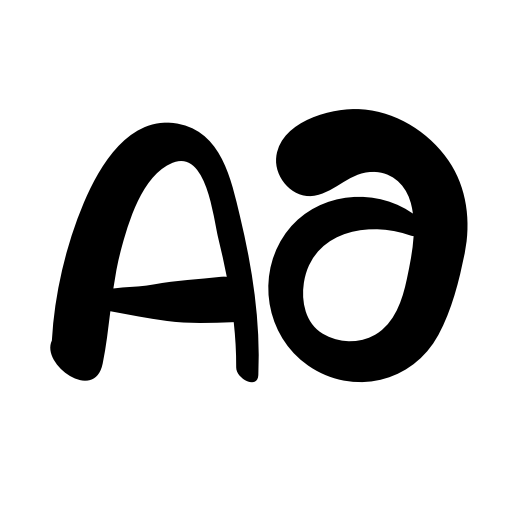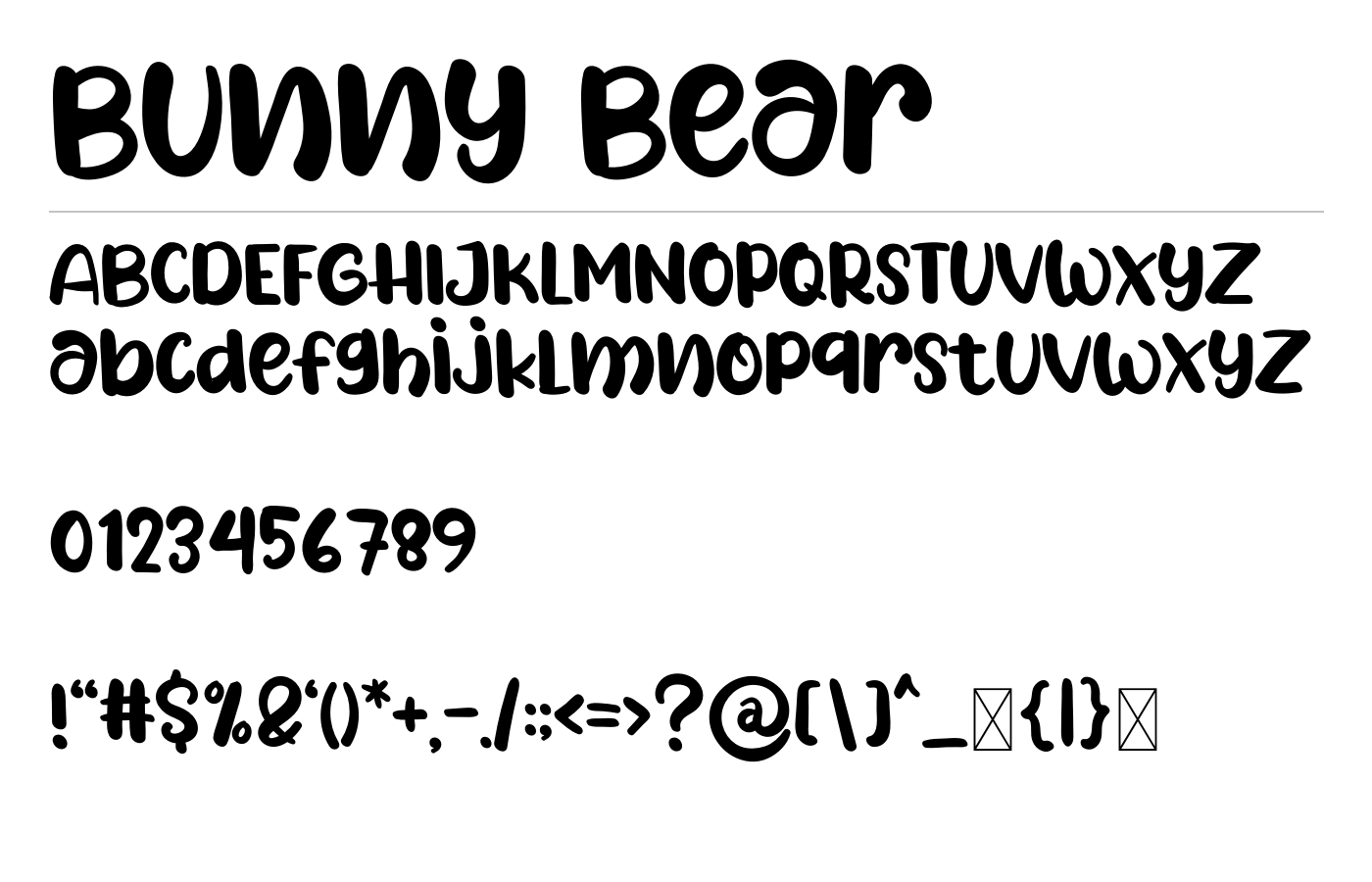
Bunny Bear is a playful and friendly handwritten sans-serif font featuring rounded, chunky letterforms with a casual, approachable feel. Its generous spacing and lively character shapes make it ideal for children’s books, fun branding, and informal communication, bringing warmth and charm to any design. This font works well for headlines, logos, and packaging where a lighthearted, engaging tone is desired.
Bunny Bear Font